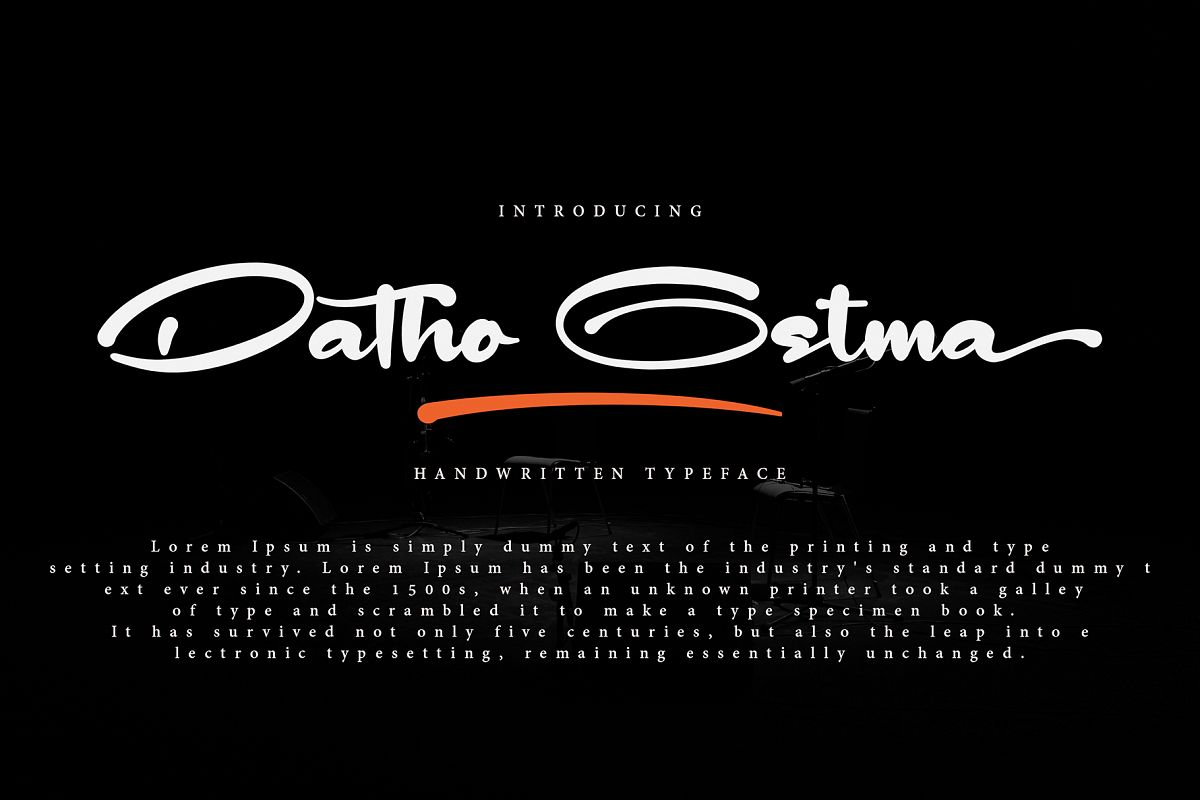
Datho Ostma
Datho Ostma font with new style  handwritten, this font will perfect for many different project ex: quotes, logo, blog header, poster, banding, fashion, apparel, letter, invitation, stationery, etc...